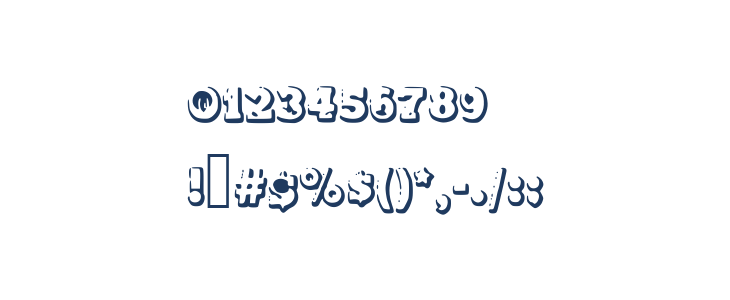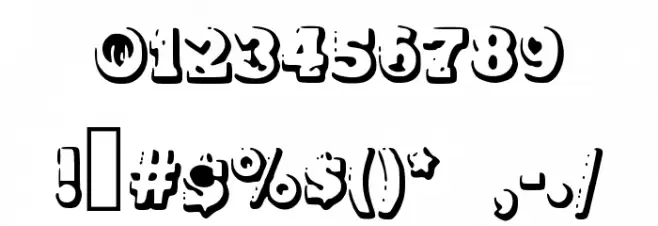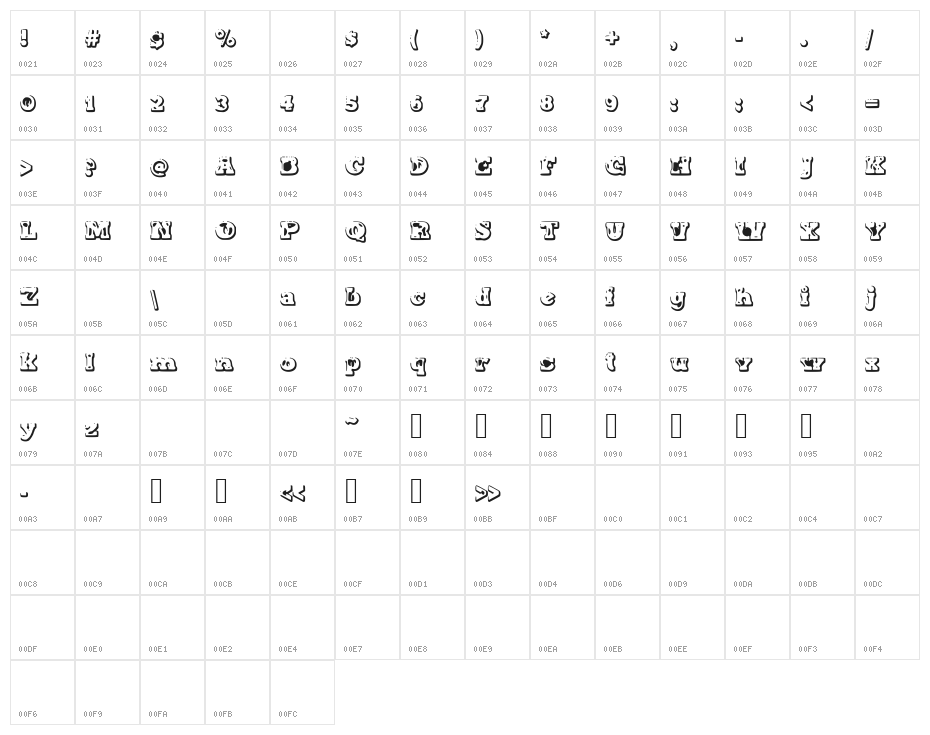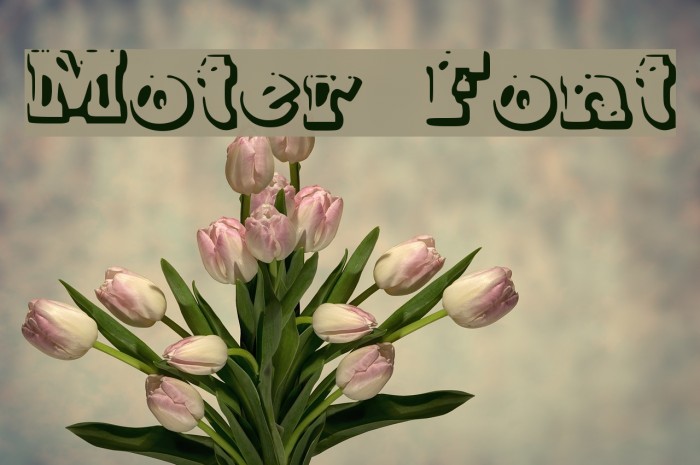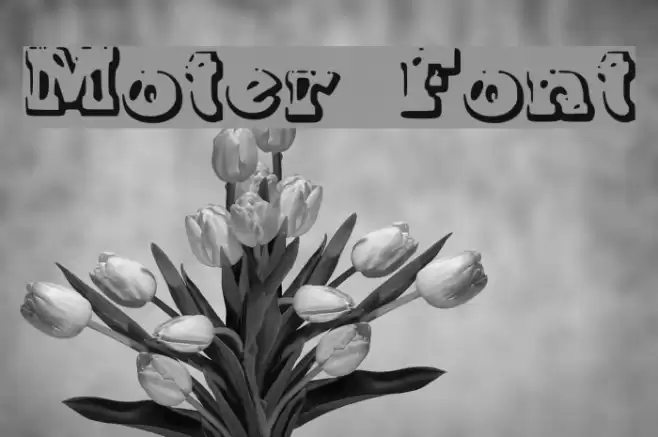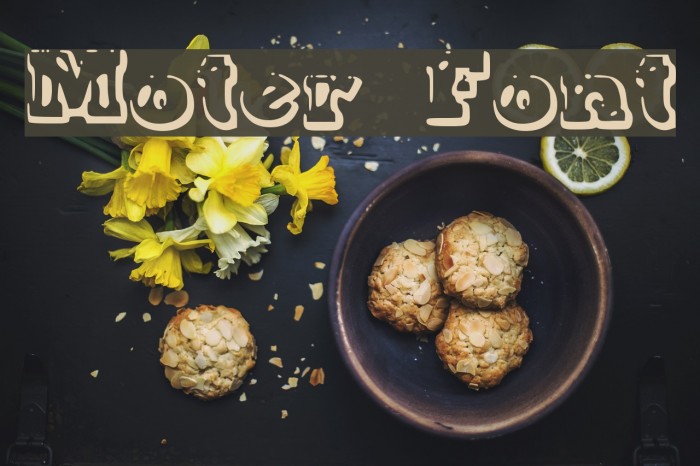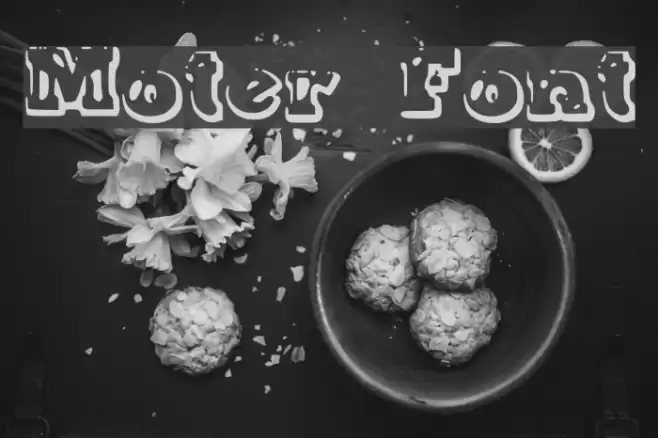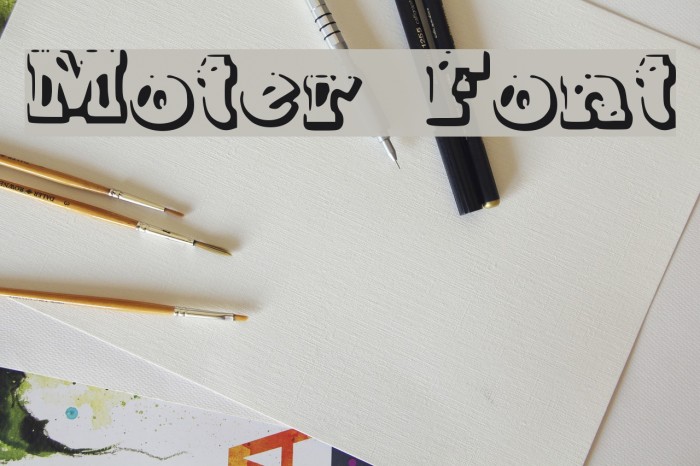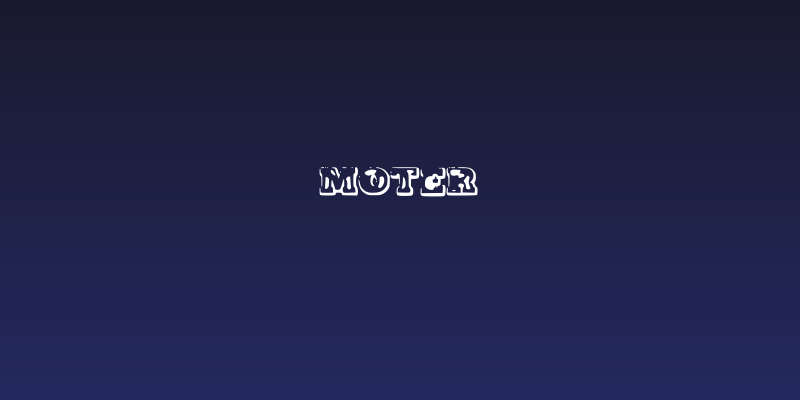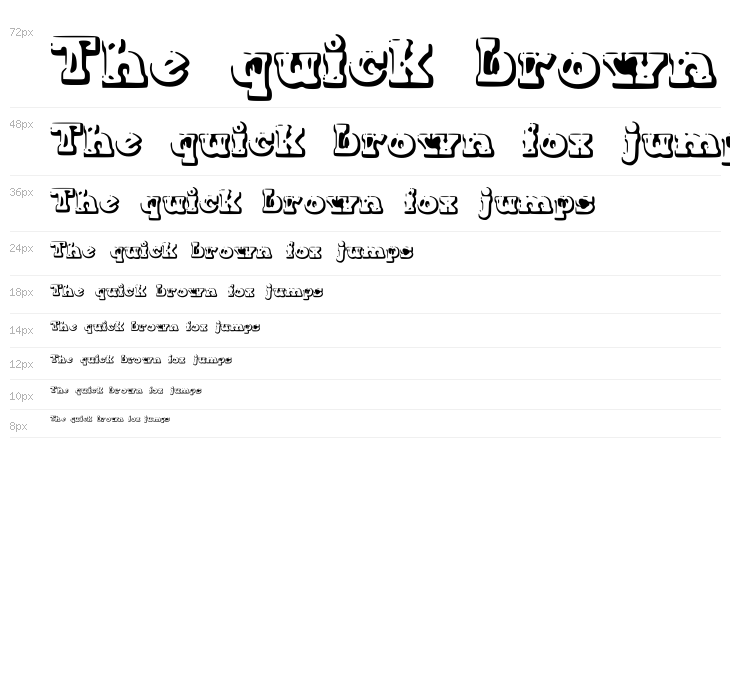
Moter Font
Moter Description
This font features a bold and decorative style with a distressed, grunge-like texture. The characters are heavily stylized, with thick strokes and irregular edges that give them a worn, vintage appearance. The uppercase and lowercase letters maintain a consistent weight, contributing to a cohesive look across the alphabet. The numerals and special characters follow the same design principles, ensuring uniformity throughout. This font's unique aesthetic makes it stand out, offering a distinct visual impact.
Overall StyleVintage
Proposed ProjectsIdeal for projects requiring a vintage or grunge aesthetic, such as posters, album covers, or branding for retro-themed events.